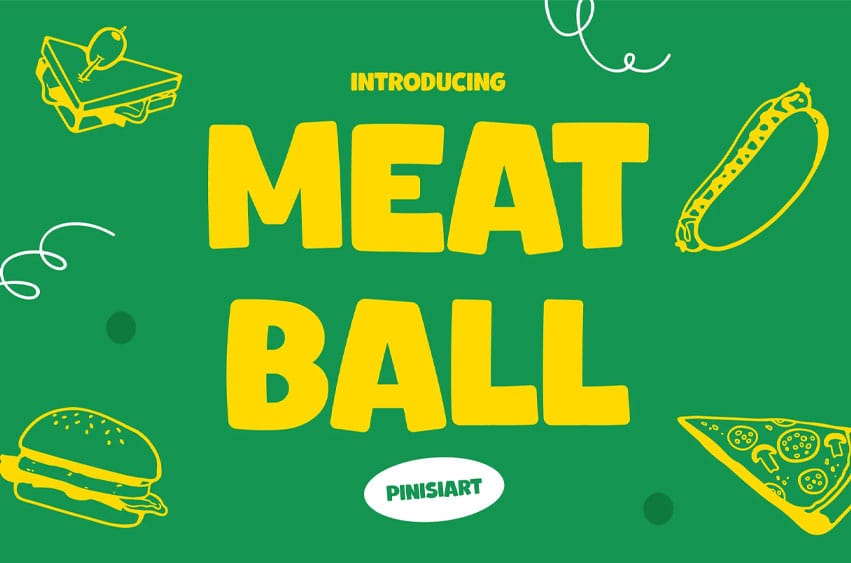
Meatball Sans Font brings a bold, playful twist to your creative projects with its rounded letterforms and bouncy rhythm. Its chunky structure and friendly vibe instantly add warmth and approachability to any layout. Designed for eye-catching food packaging, kids’ branding, or fun social media visuals, Meatball serves up delicious design energy with every curve.
From burger shops to donut brands, Meatball fits right into modern food marketing, cafe menus, and children’s book covers. Its cheerful weight and smooth shapes create instant visual comfort, helping your brand look tasty, memorable, and full of personality. Use it for posters, storefront signage, packaging, or even digital ads that need a touch of friendly flavor.
Key Features :
- Playful Look: Rounded and bold for positive, fun visuals.
- Strong Readability: Great balance between chunk and clarity.
- Versatile Personality: Works for branding, menus, posters, or packaging.
- Positive Emotion: Instantly adds cheer and approachability to any design.